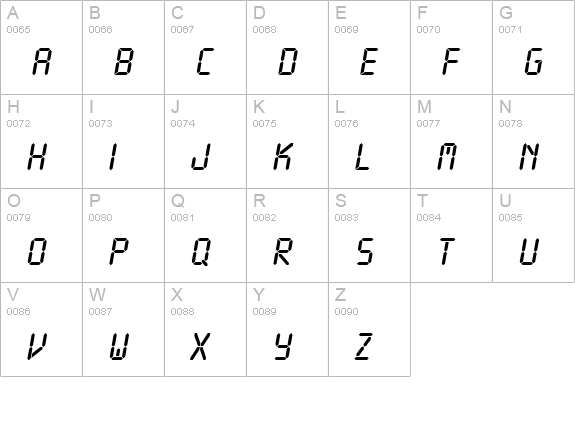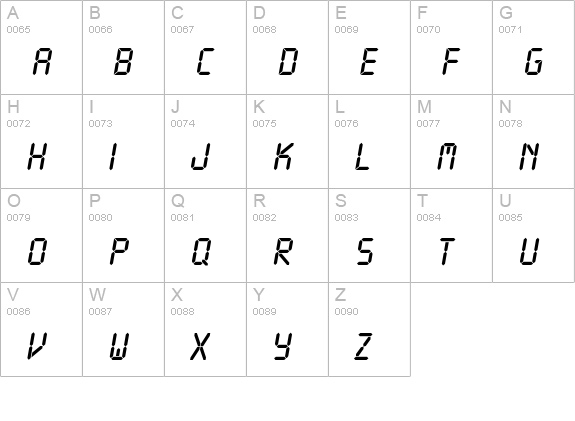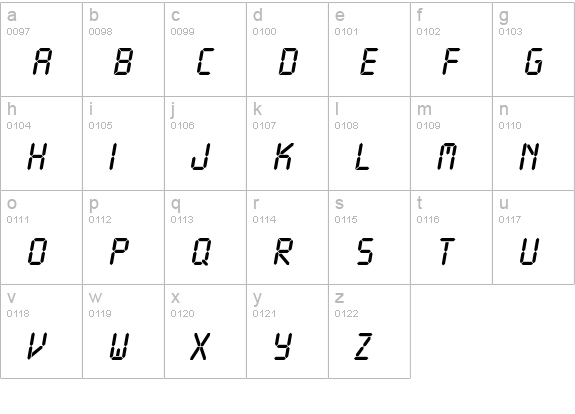
LcdD Font Details
Introducing LcdD, a dynamic and captivating font that is sure to make a lasting impression. With its sleek and modern design, LcdD effortlessly combines the best of both worlds - elegance and functionality. This versatile typeface is perfect for a wide range of projects, from eye-catching headlines to stylish branding materials. What sets LcdD apart is not just its striking aesthetics, but also its incredible accessibility. This font is available to everyone, absolutely free of charge. Yes, you read that right - LcdD can be freely downloaded from FontsMarket.com, allowing you to bring your creative visions to life without any limitations. Designed with utmost care and attention to detail, LcdD offers a wide variety of characters, ensuring that your text stands out with clarity and precision. Whether you're creating a cutting-edge website, designing a captivating poster, or crafting a unique logo, LcdD's versatility and readability make it the perfect choice. With LcdD, you no longer have to compromise on quality or cost. This font provides a seamless blend of style and accessibility, allowing you to elevate your projects to new heights without breaking the bank. So why wait? Take advantage of this incredible opportunity and unleash your creativity with LcdD - the freely available font that will truly make a difference. Download it today at FontsMarket.com and embark on a captivating typographic journey like never before.